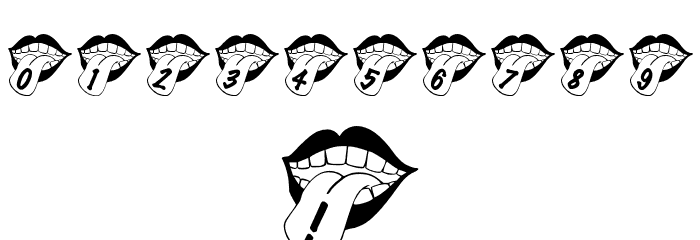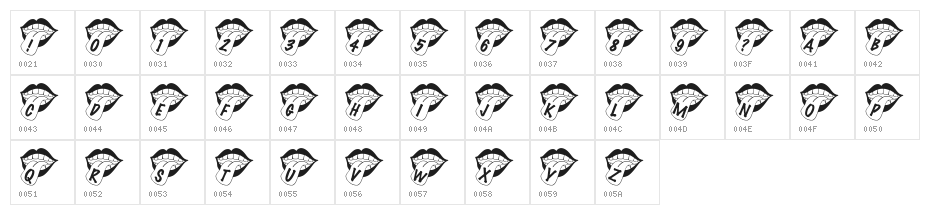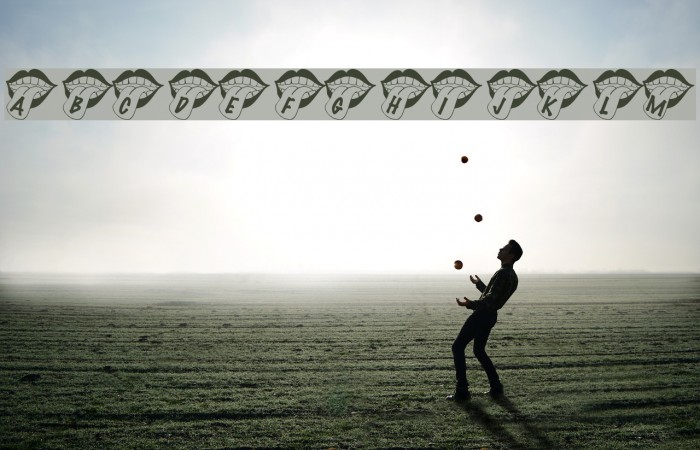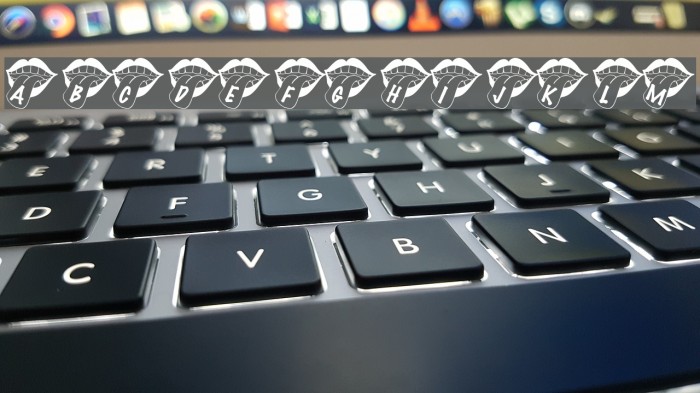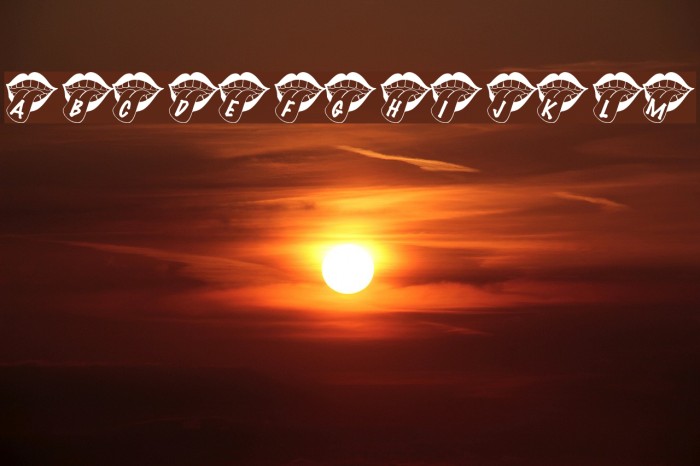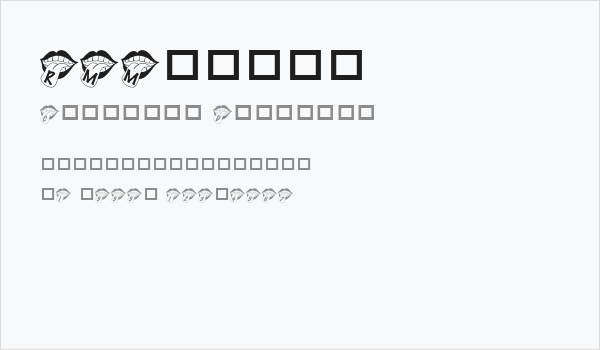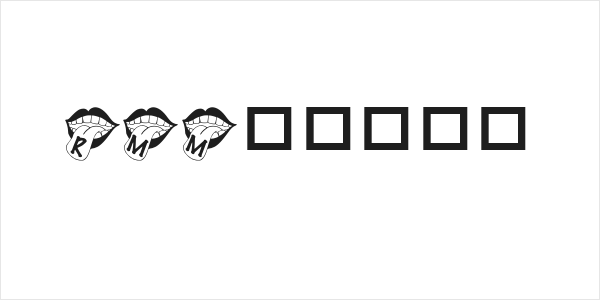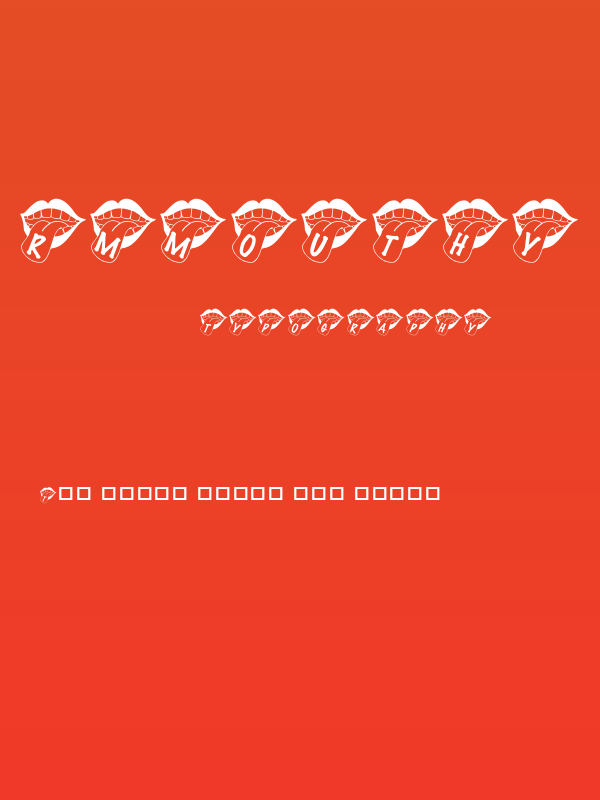
RMMouthy Font
RMMouthy Description
This font features a unique and playful design where each character is integrated into a graphic of lips with a tongue sticking out. The letters and numbers are bold and prominently displayed on the tongue, creating a striking visual effect. The style is highly decorative and unconventional, making it stand out for creative projects. The characters are evenly spaced within the design, maintaining a consistent look across the set. This font is ideal for projects that require a fun and edgy aesthetic, such as music posters, album covers, or themed event invitations.
| Use Case | Logos, Headlines |
| Proposed Projects | Ideal for music posters, album covers, themed event invitations, and creative branding. |